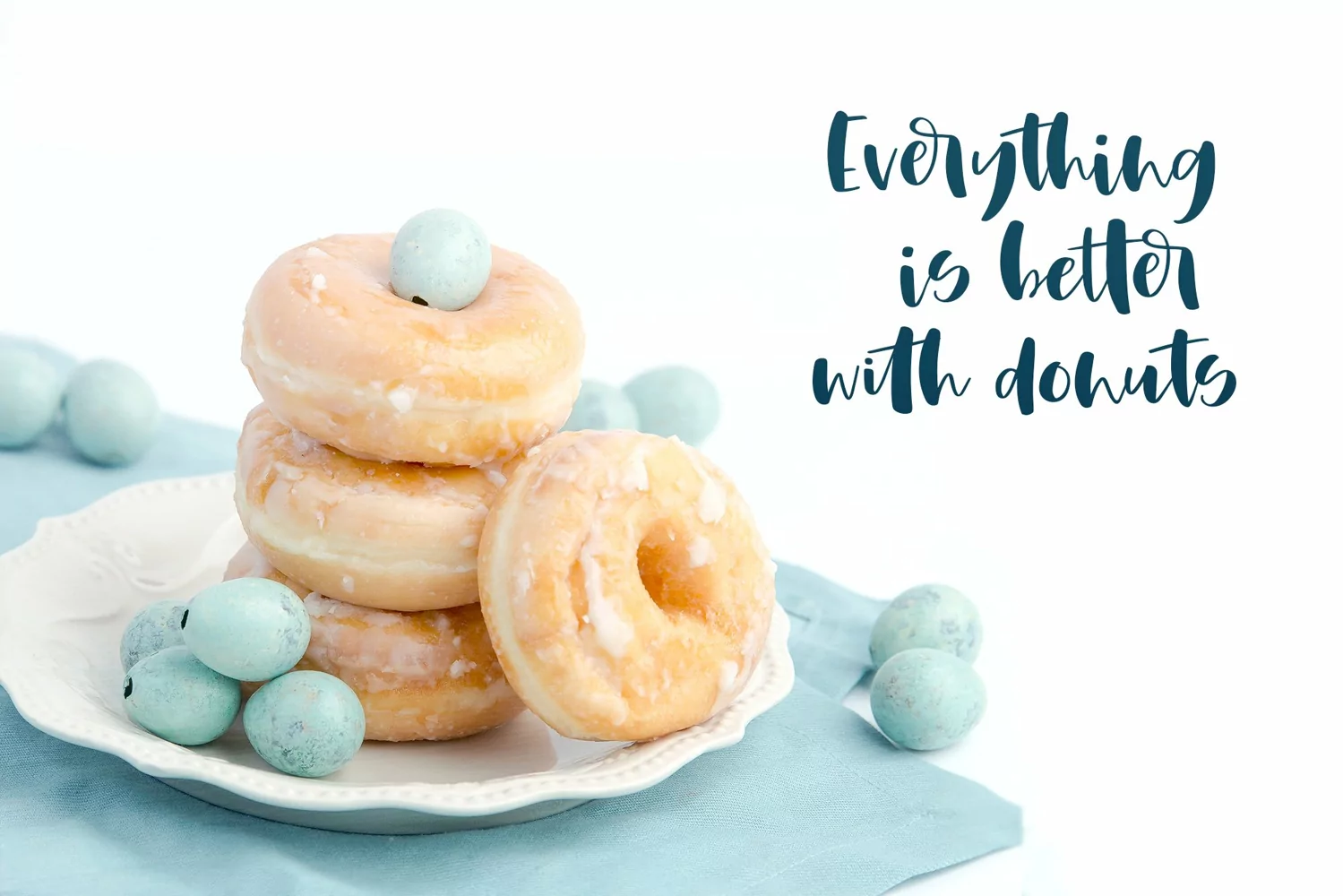
Whitbury, a modern calligraphy script font
Whitbury is a modern calligraphy script font with thin upstrokes and super heavy downstrokes.  It has lots of fun ligatures.  It's fun to use for quotes and headlines, and logos and branding projects.  It's casual and playful.